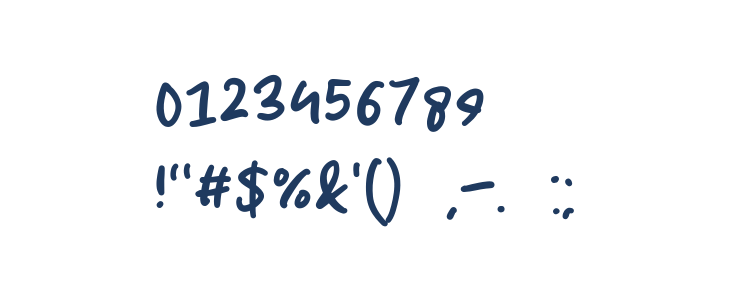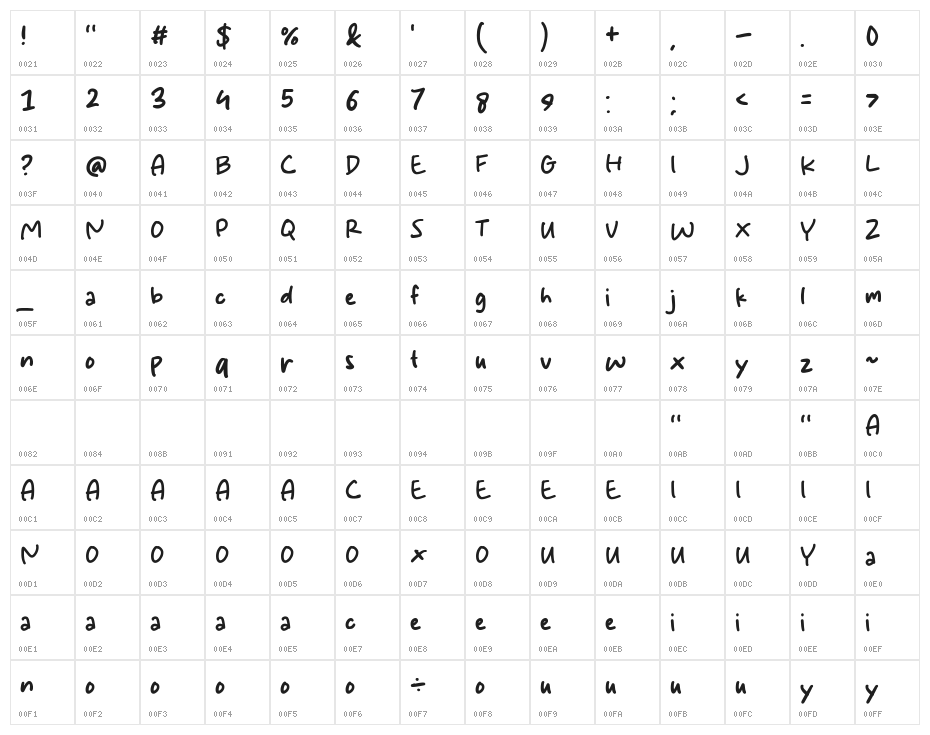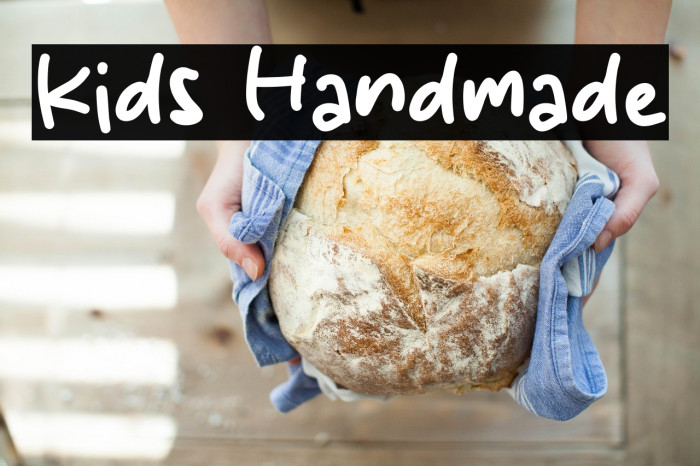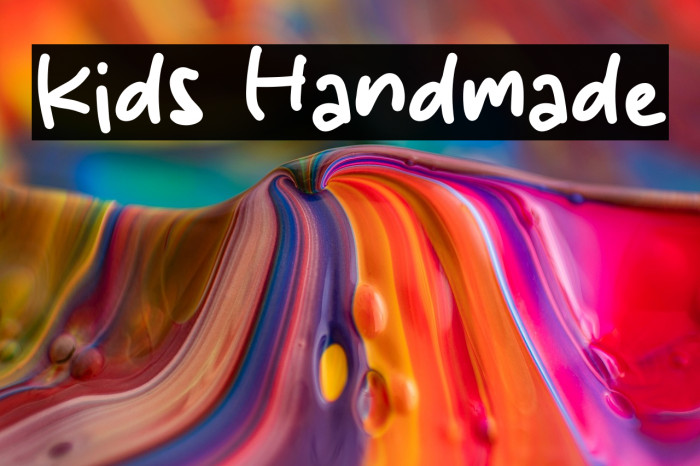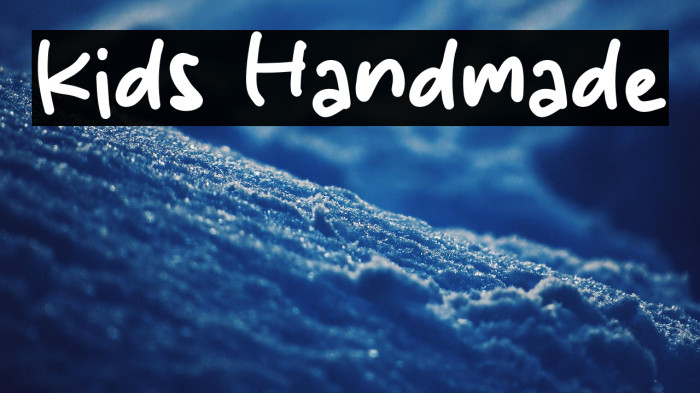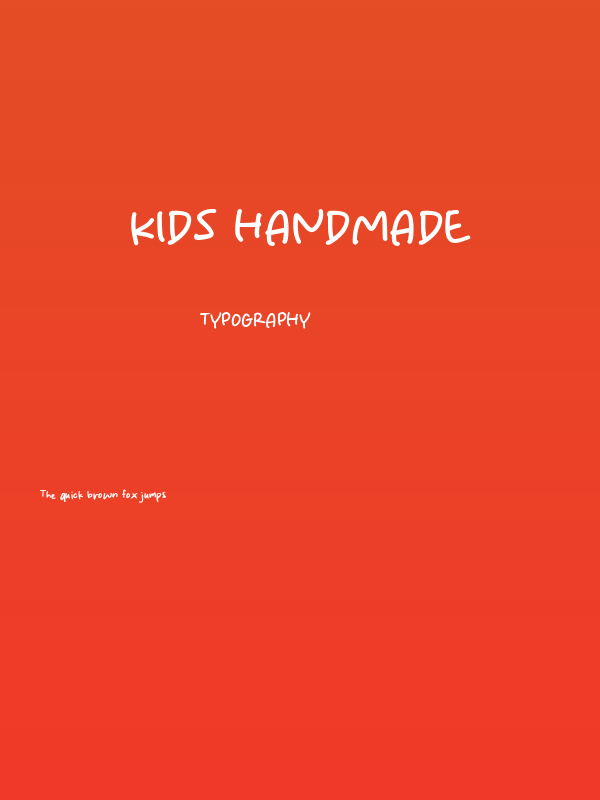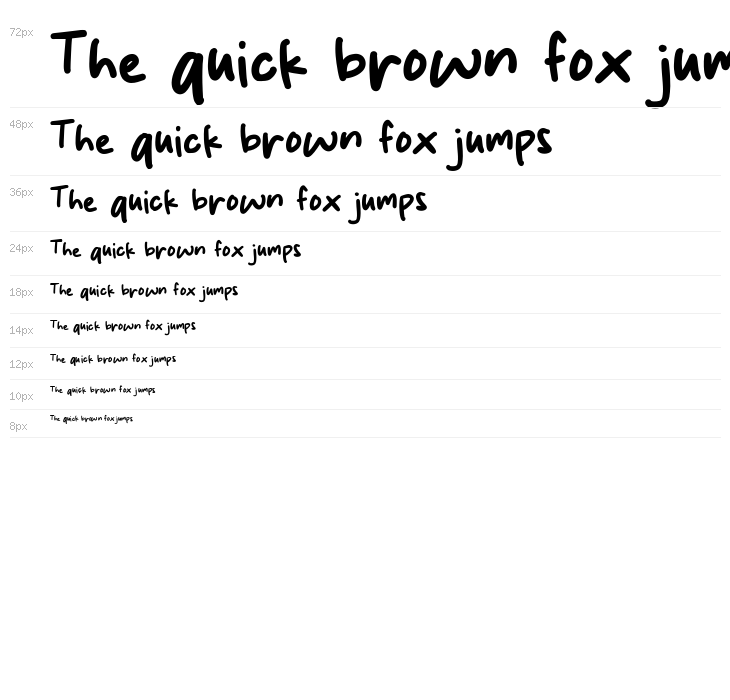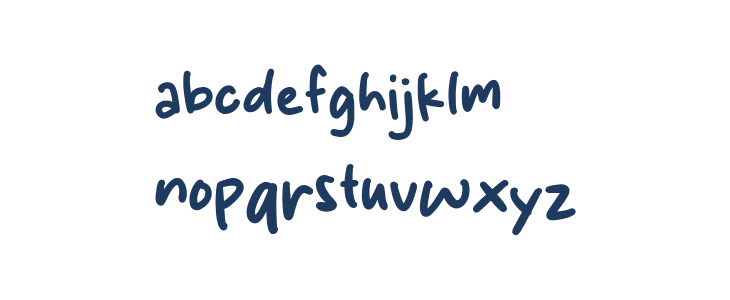
Kids Handmade Font
Kids Handmade Description
This playful and whimsical font exudes a handmade charm, reminiscent of a child's handwriting. The letters are slightly irregular, adding a sense of authenticity and warmth. The strokes are bold and rounded, giving it a friendly and approachable appearance. The font maintains a consistent weight throughout, with a slightly wider character spacing that enhances readability. Its informal style makes it perfect for projects that require a touch of creativity and fun.
Overall StylePlayful, Whimsical
Use CaseHeadlines, Logos, Creative projects
Proposed ProjectsIdeal for children's books, educational materials, playful branding, greeting cards, and creative projects.